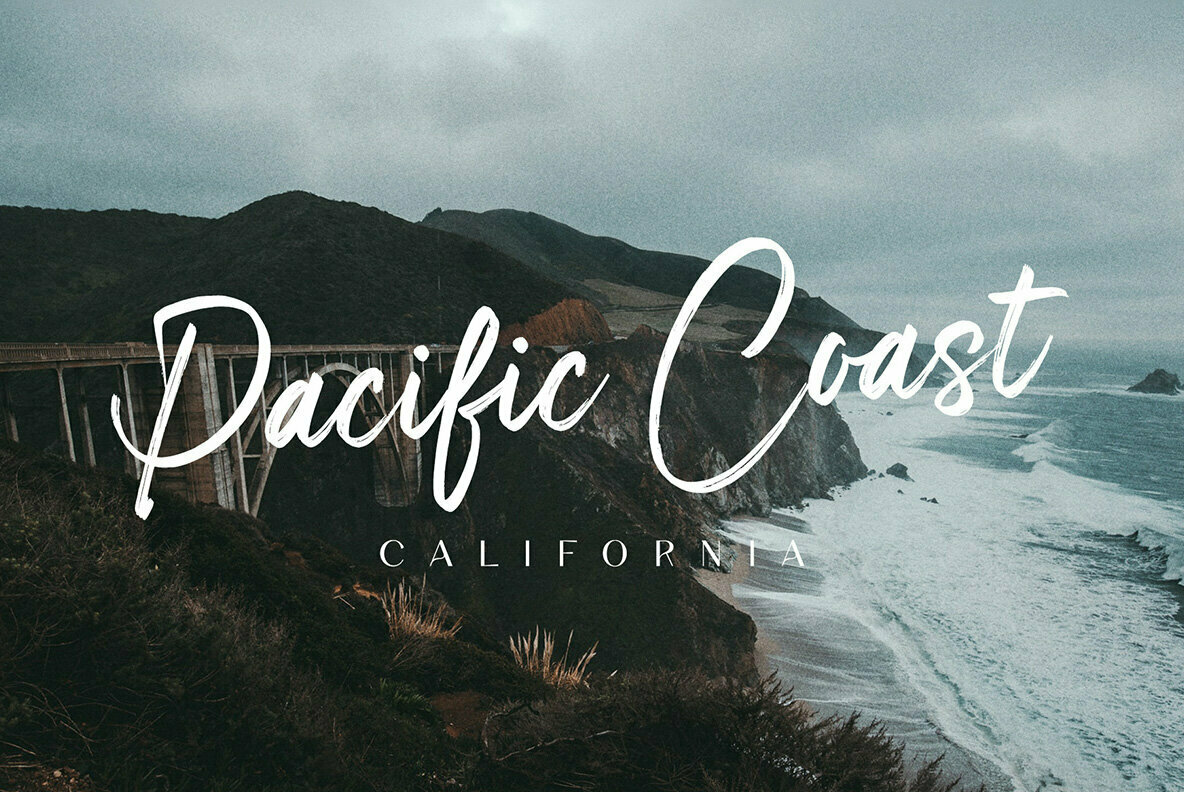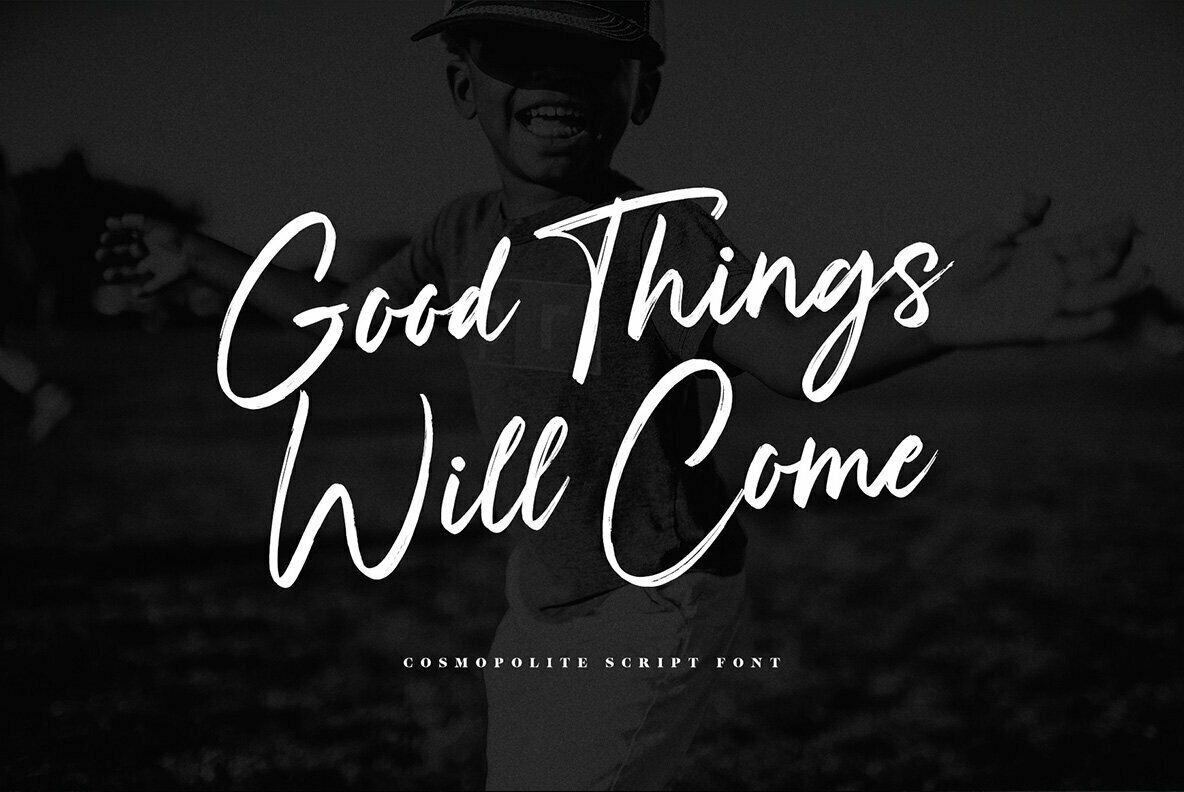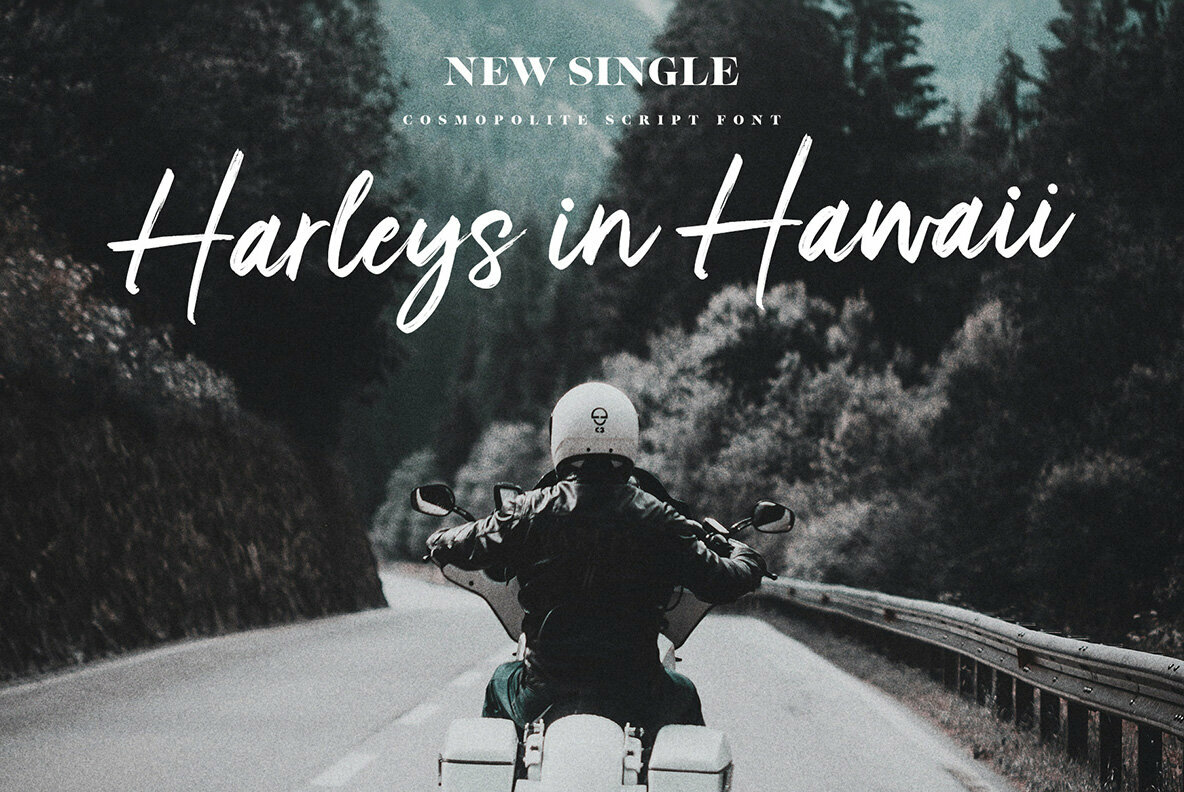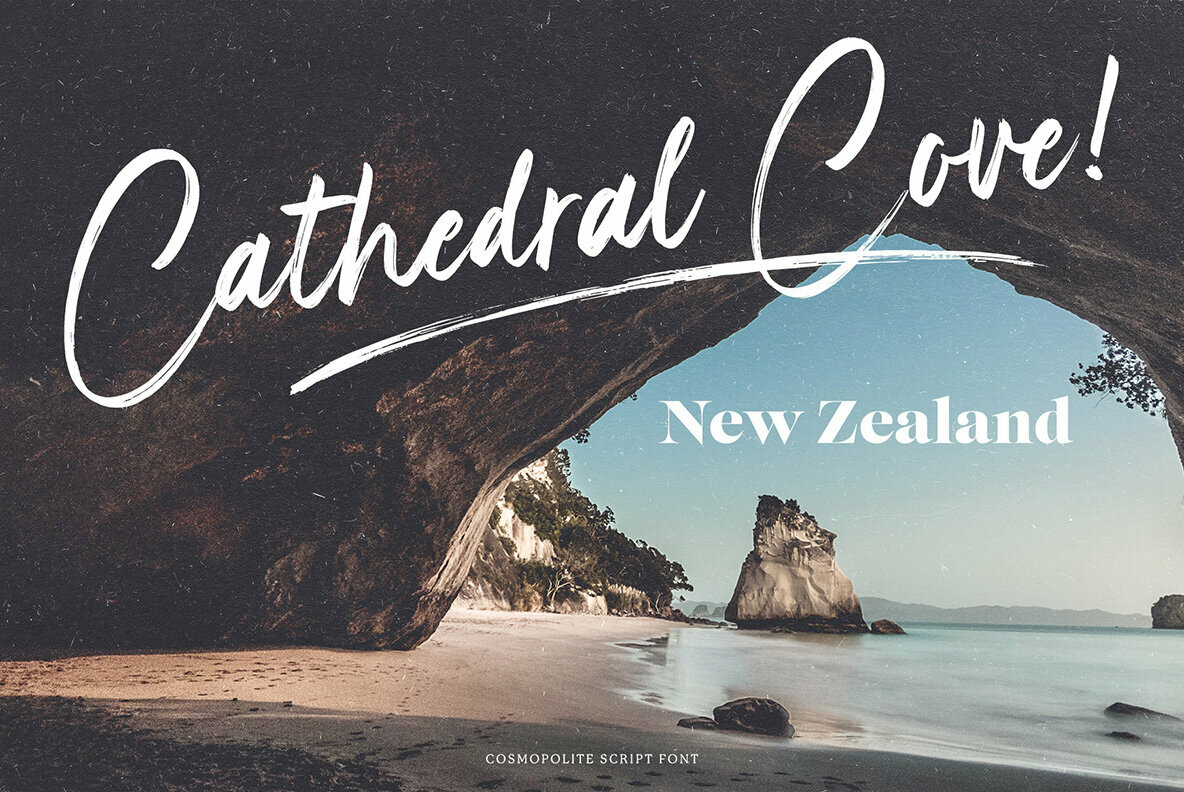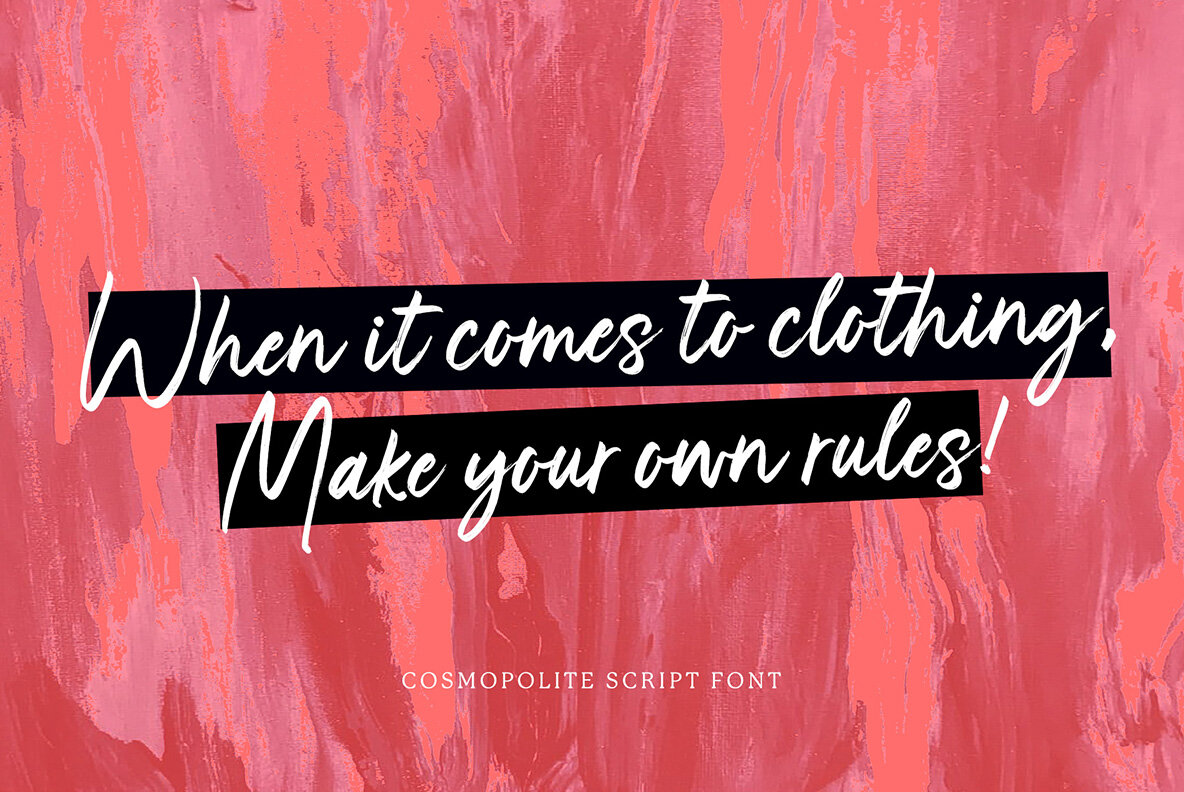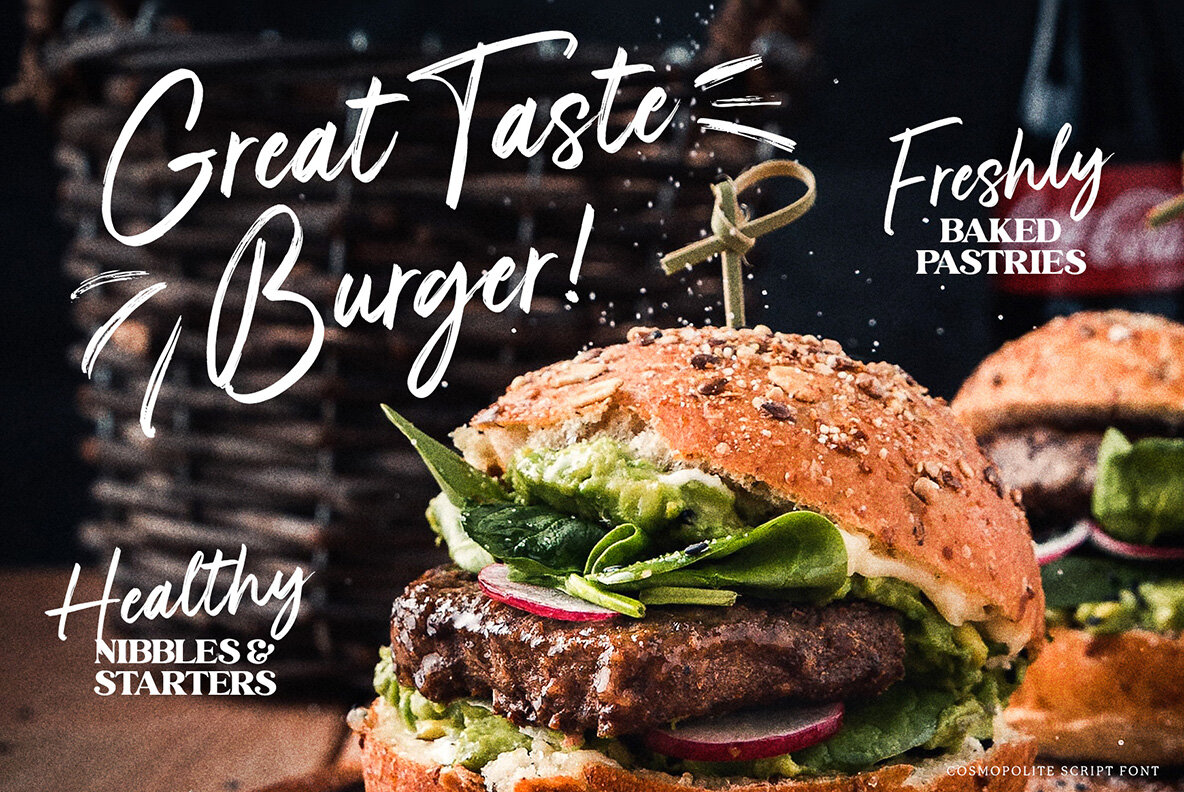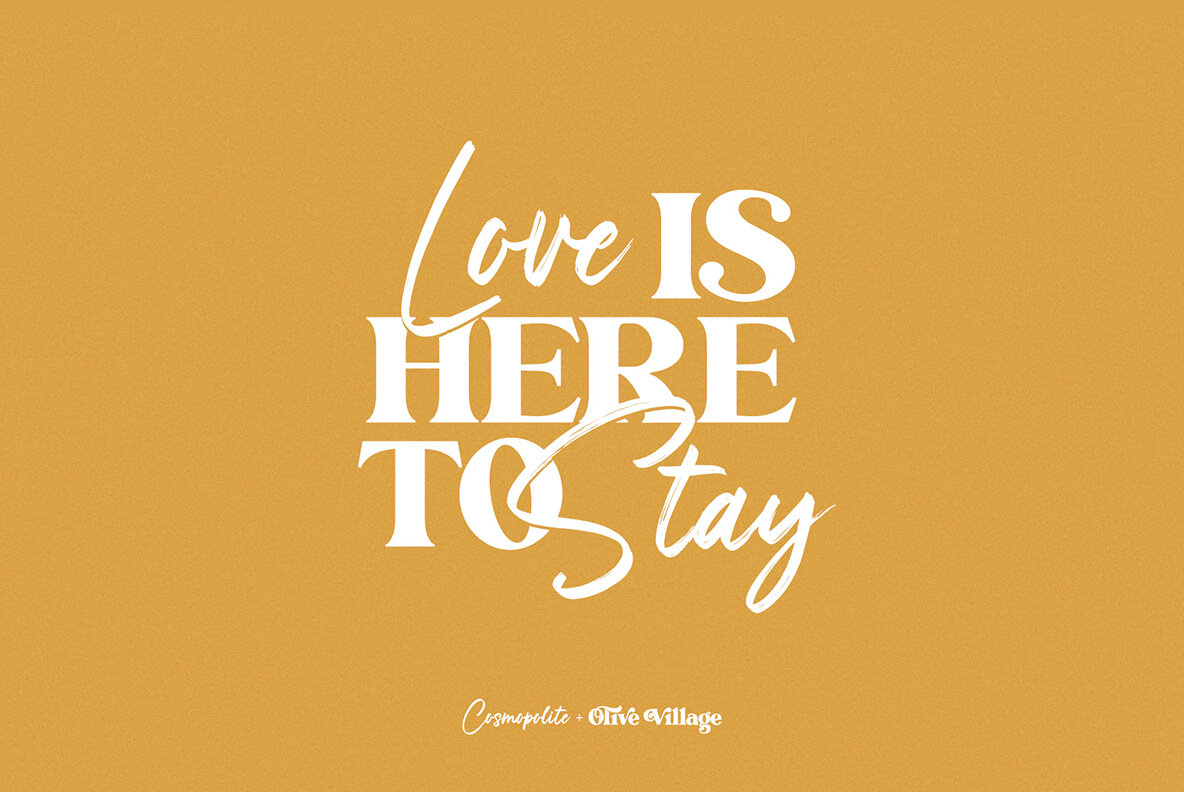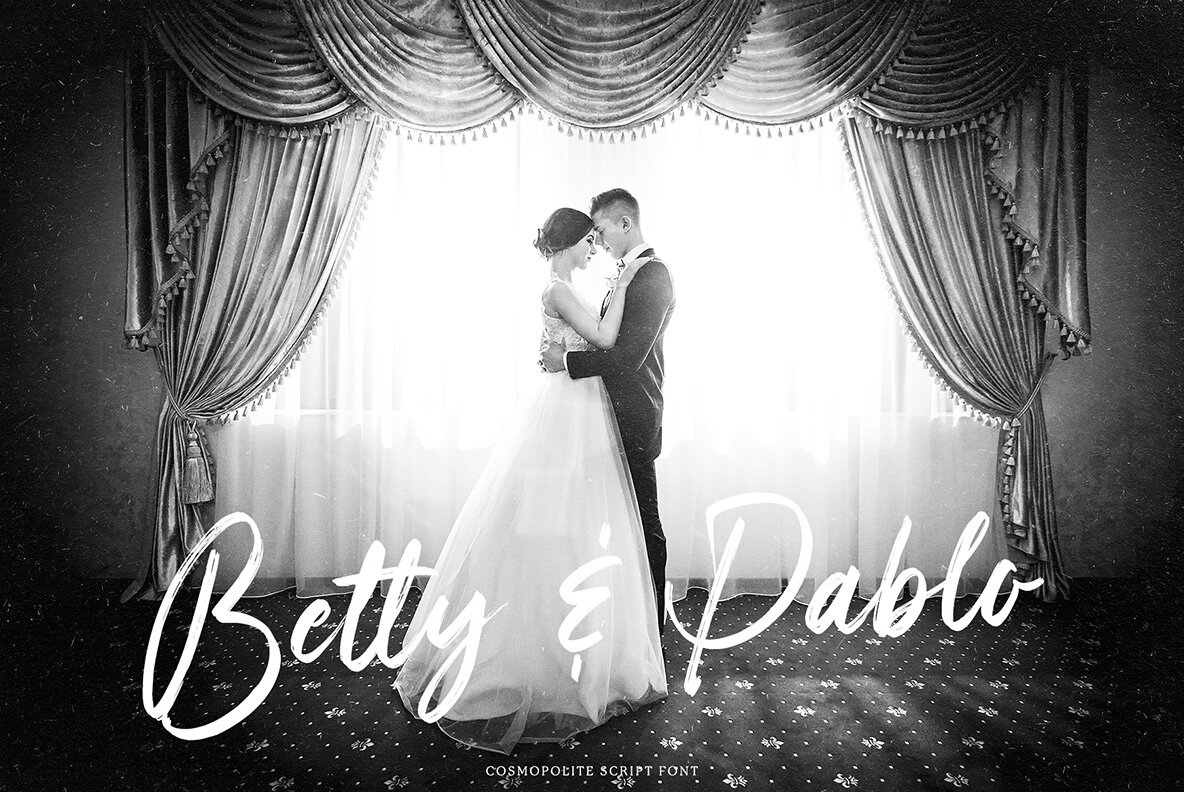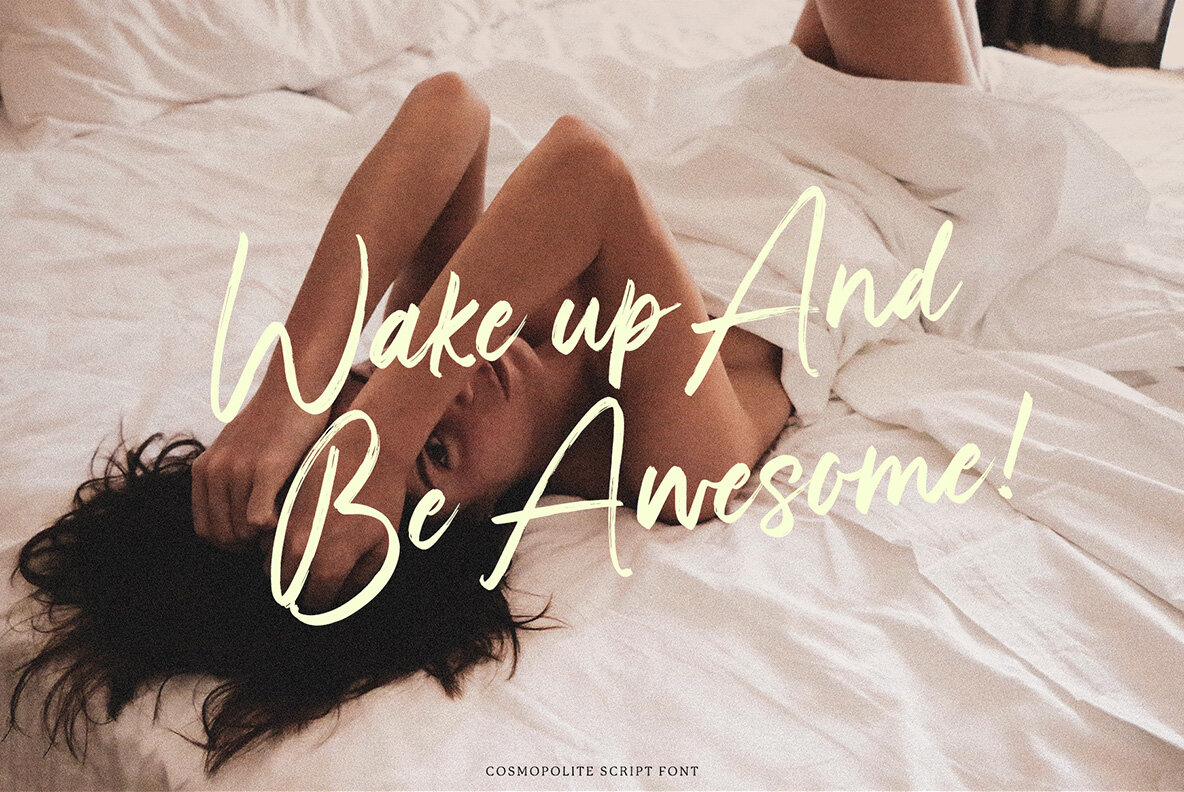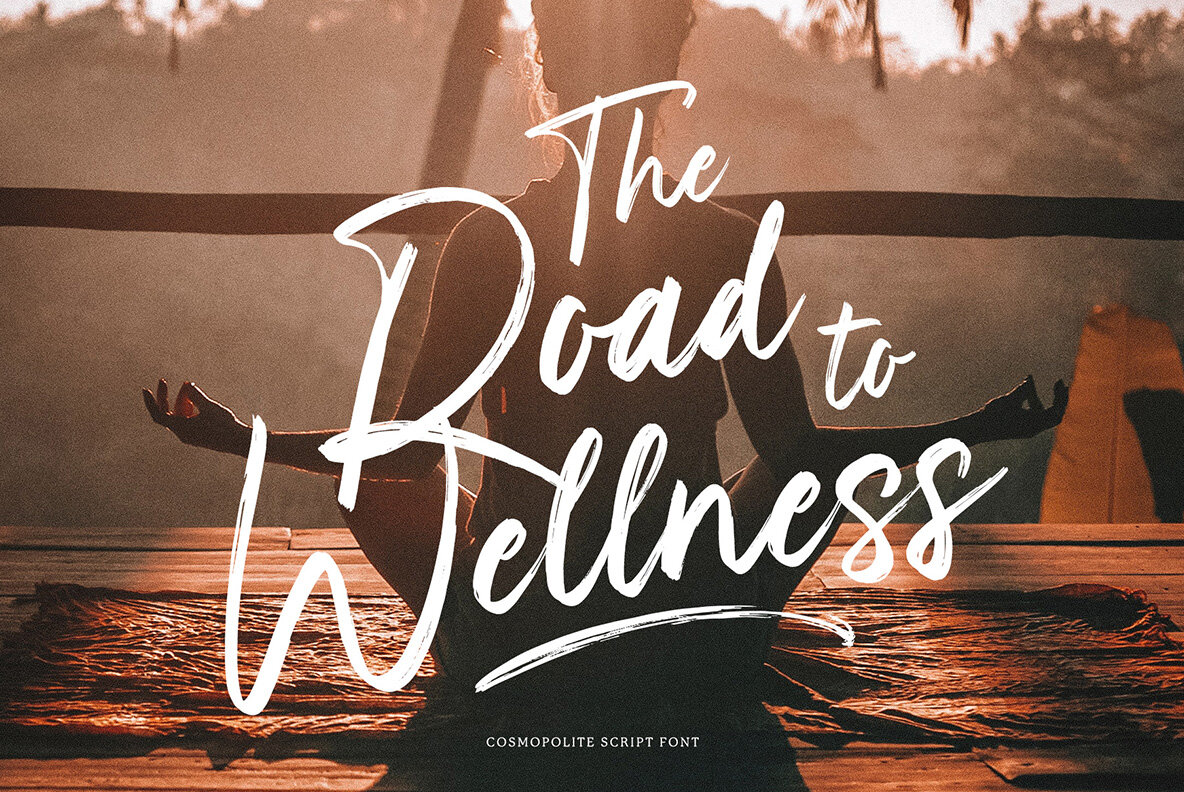
Cosmopolite Font
Cosmopolite Regular
Cosmopolite, designed by Ivan Rosenberg, is a versatile hand brushed font that exudes charm and sophistication. Its unique style is perfect for diverse applications such as t-shirts, magazines, phone covers, social media, restaurant menus, greeting cards, invitations, weddings, and headers. The font's adaptability makes it a favorite in various creative projects, offering a distinct touch to every design. Features: To access the stylistic alternates, software with a glyphs panel—such as Photoshop, Illustrator, or Inkscape—is required. Ligatures are designed to appear automatically, ensuring seamless integration into your design. With robust multilingual support, Cosmopolite bridges language barriers, broadening its use in an international context.Cosmopolite: Hand Brushed Multilingual Mastery